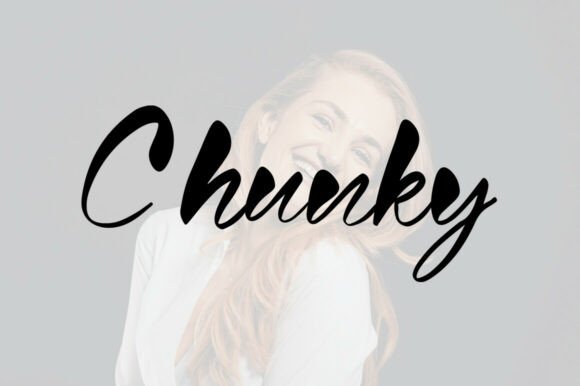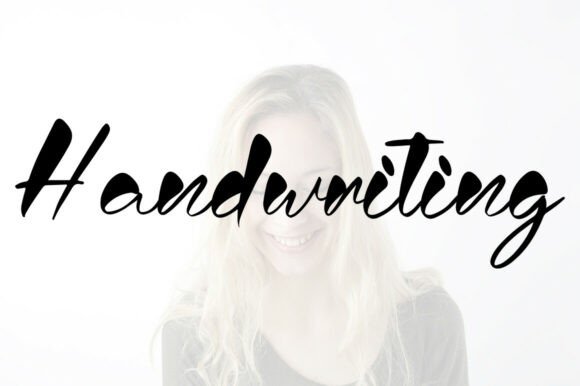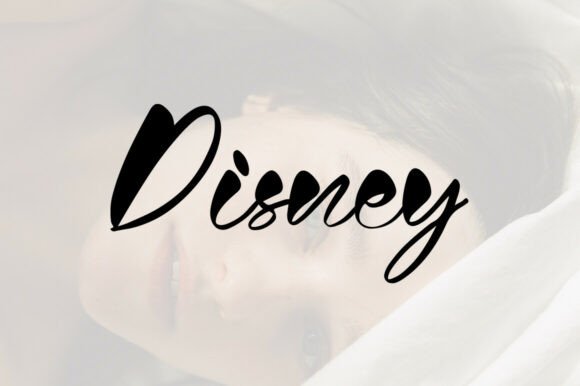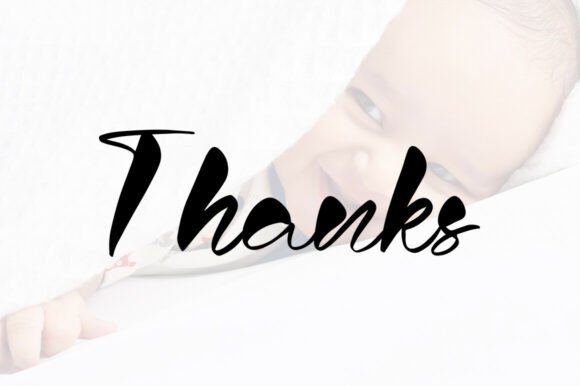
Beliving Font: Elevate Your Designs with Elegance and Flair
Are you a designer or crafter looking for a font that exudes elegance and sophistication? Look no further than Beliving Font, a delicate and flowing handwritten font that is sure to elevate your designs to the next level. In this article, we’ll take a closer look at the features and benefits of Beliving Font, and explore how it can be used to create stunning visual content.
What is Beliving Font?
Beliving Font is a beautiful, handwritten font that is characterized by its delicate and elegant strokes. The font features well-balanced characters that are carefully crafted to create a sense of flow and harmony. The result is a font that is both refined and approachable, making it perfect for a wide range of design applications.
Key Features of Beliving Font
- Delicate and elegant strokes: Beliving Font features beautiful, flowing strokes that add a touch of sophistication to any design.
- Well-balanced characters: Each character in the font is carefully crafted to create a sense of harmony and balance, making it perfect for use in a variety of design contexts.
- Wide range of design applications: Beliving Font matches a wide pool of designs, making it a versatile and practical choice for designers and crafters.
Benefits of Using Beliving Font
So why choose Beliving Font for your design projects? Here are just a few benefits of using this beautiful font:
- Adds elegance and sophistication: Beliving Font is the perfect choice for designers who want to add a touch of elegance and sophistication to their designs.
- Versatile and flexible: The font’s well-balanced characters and flowing strokes make it suitable for use in a wide range of design applications, from wedding invitations to branding and packaging.
- Easy to read and understand: Despite its elegant and refined appearance, Beliving Font is still easy to read and understand, making it perfect for use in body copy and other text-based design elements.
How to Use Beliving Font in Your Designs
Beliving Font is a versatile and flexible font that can be used in a wide range of design applications. Here are a few ideas to get you started:
- Wedding invitations and stationery: Beliving Font is perfect for use in wedding invitations, save-the-date cards, and other stationery designs.
- Branding and packaging: The font’s elegant and refined appearance makes it a great choice for use in branding and packaging designs.
- Signage and display graphics: Beliving Font can also be used in signage and display graphics, such as menus, flyers, and brochures.
Tips for Getting the Most Out of Beliving Font
Here are a few tips for getting the most out of Beliving Font:
- Use it sparingly: While Beliving Font is a beautiful font, it can be overwhelming if used too much. Use it sparingly to add a touch of elegance and sophistication to your designs.
- Experiment with different colors and textures: Beliving Font looks great in a variety of colors and textures. Experiment with different combinations to find the one that works best for your design.
- Pair it with other fonts: Beliving Font can be paired with other fonts to create a unique and interesting design. Try pairing it with a bold, sans-serif font for a striking contrast.
In conclusion, Beliving Font is a beautiful and elegant handwritten font that is perfect for designers and crafters looking to add a touch of sophistication to their designs. With its delicate and flowing strokes, well-balanced characters, and versatile design applications, Beliving Font is a great choice for a wide range of design projects. Whether you’re creating wedding invitations, branding and packaging, or signage and display graphics, Beliving Font is sure to elevate your designs to the next level.